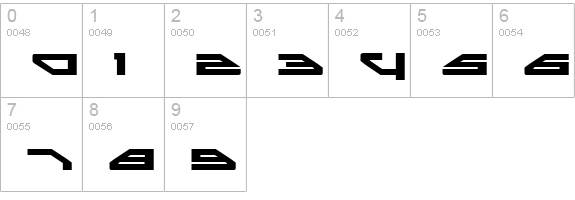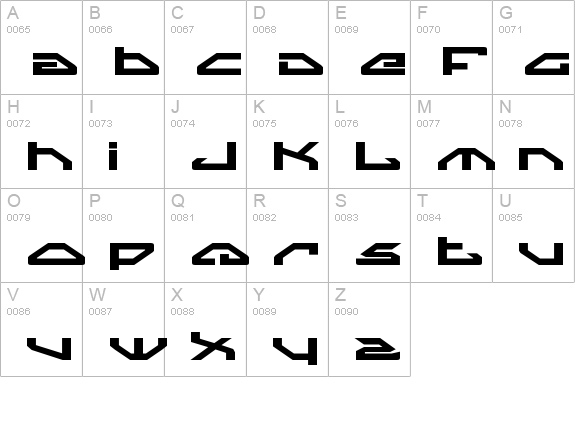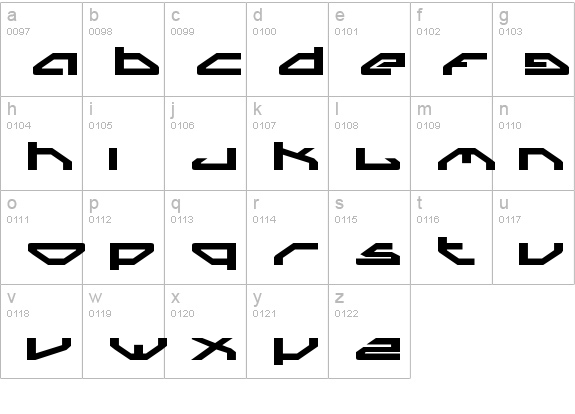
Spylord Bold Expanded is a strong, high-contrast, extended-width variant in the Spylord typeface family \xE2\x80\x94 well suited to headlines, attention-grabbing titles, and strong calls-to-action.
Introducing Spylord Bold Expanded font, a powerful and captivating typeface that exudes an air of sophistication and intrigue. With its bold and expanded design, this font commands attention and demands to be noticed. Spylord Bold Expanded font is perfect for creating eye-catching headlines, striking logos, and captivating designs that leave a lasting impression. Its sleek and modern style is reminiscent of a secret agent's code, adding a touch of mystery and allure to any project. But what sets Spylord Bold Expanded font apart is its accessibility - it is available for free download at FontsMarket.com. Yes, you read that right! This incredible font can be yours without spending a single penny. FontsMarket.com is dedicated to providing high-quality fonts for designers and enthusiasts alike, and Spylord Bold Expanded font is no exception. Whether you're a professional designer looking to add a touch of boldness to your creations, or a hobbyist searching for a unique font to elevate your personal projects, Spylord Bold Expanded font is the perfect choice. Its versatility allows it to shine in a variety of contexts, from print to digital, making it a go-to font for all your creative endeavors. So why wait? Head over to FontsMarket.com now and download Spylord Bold Expanded font for free. Unleash your creativity and let this captivating font be your secret weapon in creating stunning and impactful designs.